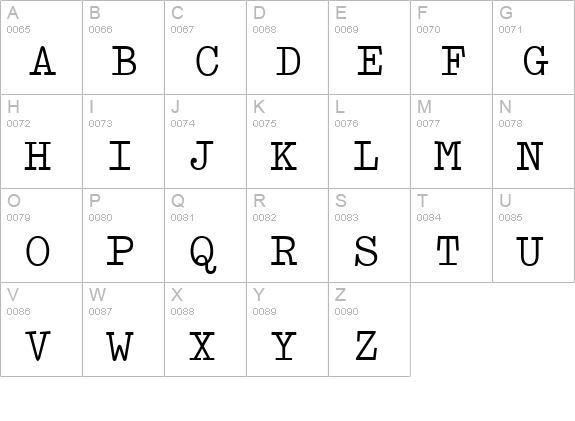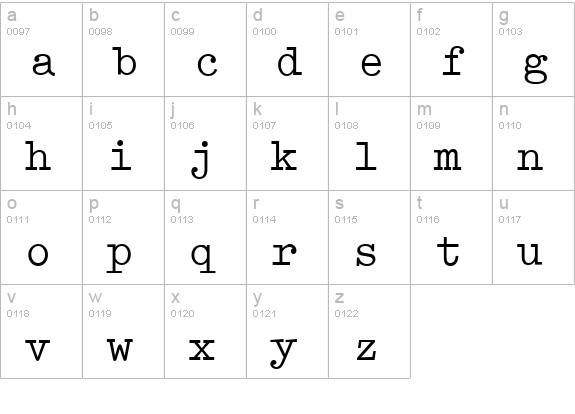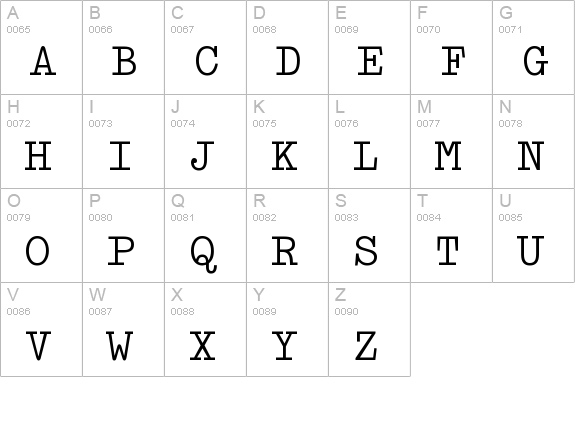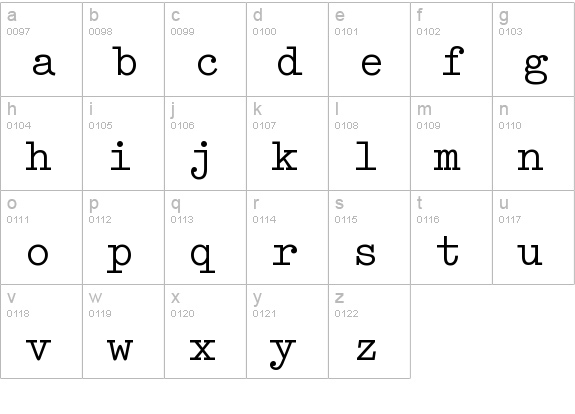
GermanTypewriter-Regular Font Details
GermanTypewriter-Regular is the standard, neutral variant in the GermanTypewriter typeface family \xE2\x80\x94 well suited to general body text, paragraphs, and standard typographic work.
GermanTypewriter-Regular is a classic and versatile font that captures the essence of vintage typewriters with its distinct and charming aesthetic. This font exudes a sense of nostalgia and authenticity, making it perfect for projects that require a touch of old-world charm. GermanTypewriter-Regular is designed with precision and attention to detail, ensuring clear legibility and a timeless appeal. The best part is that GermanTypewriter-Regular is completely free to download at FontsMarket.com, offering you the opportunity to enhance your designs with this unique and elegant font without any cost. Whether you're working on a retro-inspired project, a vintage-themed design, or simply looking to add a touch of character to your work, GermanTypewriter-Regular is a fantastic choice that will elevate your creations to a new level of sophistication. Don't miss out on the opportunity to incorporate the beauty and character of GermanTypewriter-Regular into your designs. Download this exquisite font for free today at FontsMarket.com and let its timeless charm bring your creative vision to life.